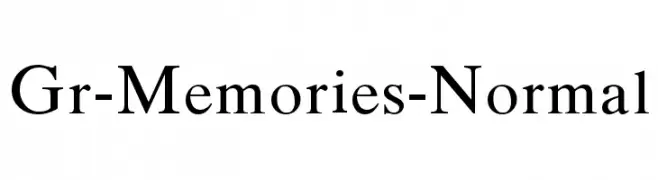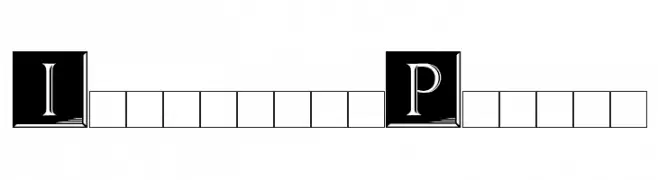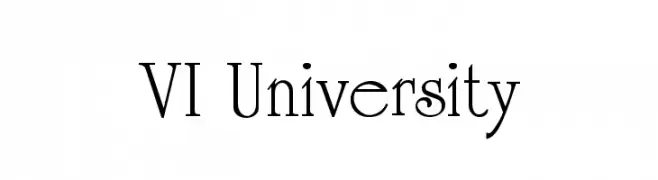
A bold, decorative font with Roman-inspired serifs and high contrast strokes.
An ornate, calligraphy-inspired font with intricate detailing and a classic yet modern appeal.
A modern font with angular letterforms and a blend of classic and contemporary styles.
A bold serif font with high contrast and angular serifs, offering a classic yet impactful style.
A modern, textured sans-serif font with diagonal line detailing.